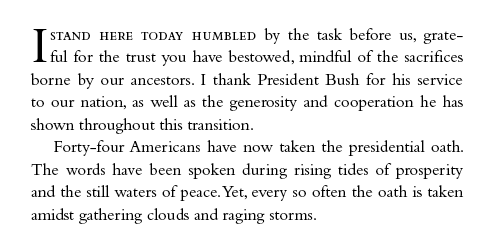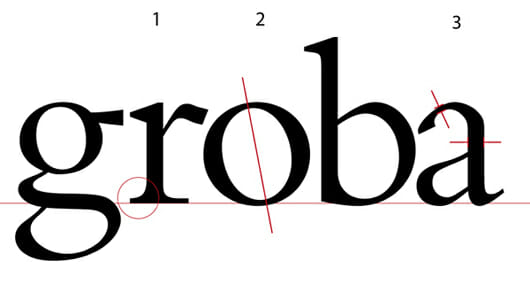
Beautiful Details, Beautiful Books: How to Recognize Oldstyle Typefaces
Book designers are typographers by necessity, if not by nature. Content may be king, but content is almost always text. Text must be displayed for a reader, either on the pages of a book, or on a screen.
To display text, you need to use a type font. The font could be chosen by a designer, or it might be a default set up by the engineers who create digital reading devices.
When it comes to fonts, designers have strong feelings. While you’re sitting at a restaurant trying to decide what to order, the book designer at the next table is examining the type fonts used on the menu and how the kerning looks.
I like Volvos, maybe you like Chevys. Same with type fonts. Some designers like Palatino, it does nothing for me. But when you find a font you love, it’s a relationship that can last a lifetime.
For many years my favorite typeface for book design was Bembo. One of the reasons I prize Bembo for book typography is the way it smoothly flows on the page. It’s easy on the eyes even for extended reading, and it seems plain and without any eccentricities.
It’s The Good Old Style
Bembo is an oldstyle typeface. That means that: (see the illustration above)
1. The serifs are bracketed: there’s a curved connection between the serif and the stem of the letter.
2. An axis drawn through the thinnest part of the round letters will lean to the left.
3. The difference between the thin strokes and the thick strokes is not that great.
These oldstyle typefaces were modeled on humanistic calligraphy. The earliest type creators and printers of the fifteenth century used as models the books that were handwritten by scribes practicing a craft that was—even then—hundreds of years old.
Blow it Up
It may seem odd that our modern digital type fonts derive from models that are ancient. Or that the pages of today’s bestseller might contain traces of the scholars of the Renaissance, the same scholars who rediscovered and reissued the books of antiquity 500 years ago. But it’s true.
Despite the smoothness that Bembo shows on the page, a look at the enlarged version above tells us a great deal about its origins.The three characteristics of the humanist typefaces I listed are all due to one influence: the way the calligrapher’s flat-edged pen forms letters:
1. As the pen held by a right-handed writer passes through the circle of the round letters, it naturally forms the tilted axis.
2. As the scribe finishes each stroke, his pen naturally creates the little serifs, or ending strokes on the letters as he moves to the next letter. This helps tie the letters together into words, and is the chief reason we prefer serif typefaces for text.
3. And the pen, although naturally creating thin and thick strokes as it moves through the letterforms, will never make a really thin line.
Not only that, but when the letters are enlarged as much as they are here, we start to see all kinds of oddities and eccentricities that are invisible at normal sizes. The branch of the “r” quivers a bit, the top of the “a” has flat spots, and “g” gyrates in several directions at once. What happened to the smooth flow we’ve come to expect from Bembo?
Truth is, a perfectly uniform typeface would be difficult to read for long. It would look pretty sterile, even boring, set in the massive blocks of text that make up books.
Bembo text
It’s because of its eccentricities that Bembo looks so beautiful on the page. All the variation in the individual letters creates color, rhythm, and the flow this typeface is known for.
Branching Out
Now I use a wider palette of typefaces for book design. Many of them are oldstyle typefaces like Bembo. Adobe Jenson, for instance, is modeled on a typeface originally created around the same time and in the same place—the late fifteenth century in Venice—that gave rise to Bembo.
And there are many other typefaces prized by book designers for their balance of evenness and eccentricity, and their ability to form inviting blocks of text that stand up to continuous and focused reading. Oldstyle typefaces form the backbone of the book designer’s library of tools. If you pick one for your book, you can’t go far wrong.